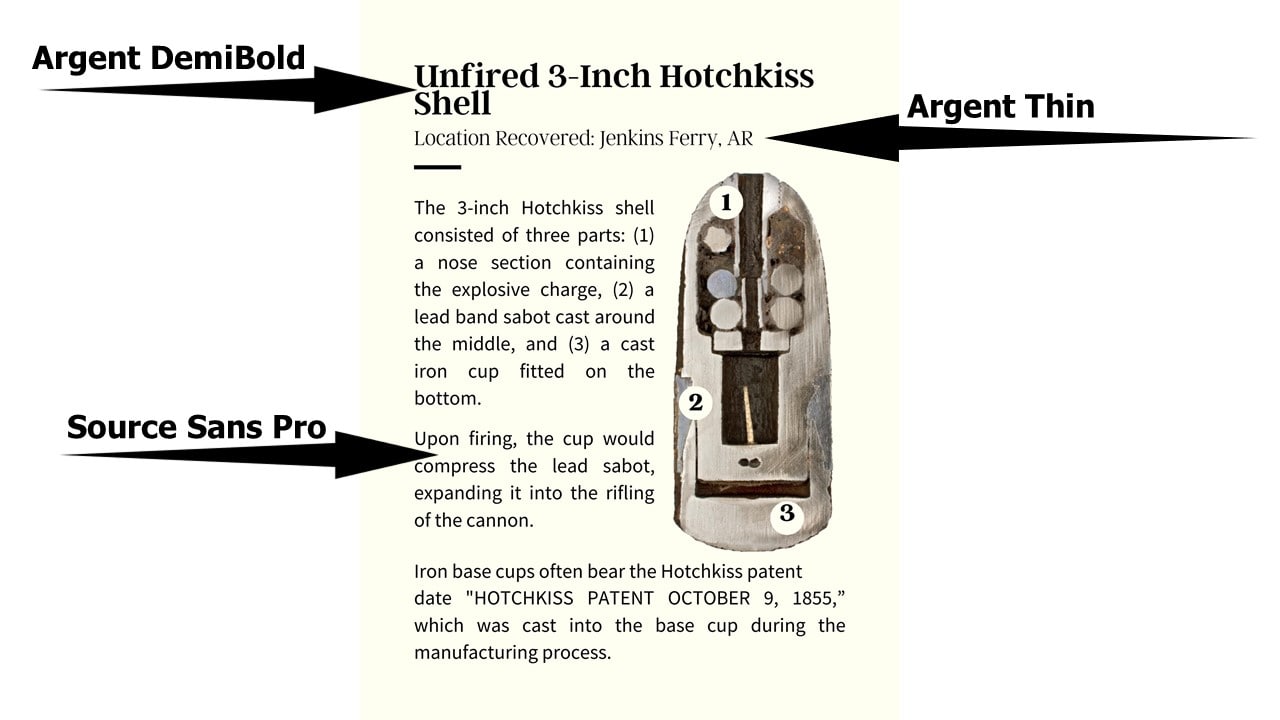
Best Font Size For Museum Labels . Test how they look on leaflet size as well as writ large at the. Type of font serif fonts can be used, as long as they are clear and uncomplicated. What we recommend is using a ratio. Below is an example object label from the national football museum. Sometimes you need to adapt the text hierarchy, perhaps with an additional layer of theme texts at the beginning of a label strip. We often get asked what is the best line height value for ‘insert font size’? Resources for regional museums and galleries 4 producing your labels there are ways you can produce labels using programs.
What we recommend is using a ratio. Resources for regional museums and galleries 4 producing your labels there are ways you can produce labels using programs. Test how they look on leaflet size as well as writ large at the. Type of font serif fonts can be used, as long as they are clear and uncomplicated. We often get asked what is the best line height value for ‘insert font size’? Sometimes you need to adapt the text hierarchy, perhaps with an additional layer of theme texts at the beginning of a label strip. Below is an example object label from the national football museum.
Best Font Size For Museum Labels Test how they look on leaflet size as well as writ large at the. What we recommend is using a ratio. Test how they look on leaflet size as well as writ large at the. Type of font serif fonts can be used, as long as they are clear and uncomplicated. Resources for regional museums and galleries 4 producing your labels there are ways you can produce labels using programs. Sometimes you need to adapt the text hierarchy, perhaps with an additional layer of theme texts at the beginning of a label strip. Below is an example object label from the national football museum. We often get asked what is the best line height value for ‘insert font size’?
Introducing the smart museum label for the 21st century Visionect Best Font Size For Museum Labels Below is an example object label from the national football museum. Type of font serif fonts can be used, as long as they are clear and uncomplicated. We often get asked what is the best line height value for ‘insert font size’? Sometimes you need to adapt the text hierarchy, perhaps with an additional layer of theme texts at the. Best Font Size For Museum Labels.
5 Types of Museum Labels We Make for Exhibits Image Transfers Best Font Size For Museum Labels Resources for regional museums and galleries 4 producing your labels there are ways you can produce labels using programs. Test how they look on leaflet size as well as writ large at the. We often get asked what is the best line height value for ‘insert font size’? What we recommend is using a ratio. Type of font serif fonts. Best Font Size For Museum Labels.
I'm after the typical font used in a typical museum label r/fonts Best Font Size For Museum Labels Type of font serif fonts can be used, as long as they are clear and uncomplicated. What we recommend is using a ratio. Test how they look on leaflet size as well as writ large at the. Below is an example object label from the national football museum. Sometimes you need to adapt the text hierarchy, perhaps with an additional. Best Font Size For Museum Labels.
Exhibition Labels Template Label Templates, Labels, Art show Best Font Size For Museum Labels Test how they look on leaflet size as well as writ large at the. We often get asked what is the best line height value for ‘insert font size’? What we recommend is using a ratio. Type of font serif fonts can be used, as long as they are clear and uncomplicated. Resources for regional museums and galleries 4 producing. Best Font Size For Museum Labels.
Museum Labels Dry Transfer Letters Best Museum Labels Top Museum Best Font Size For Museum Labels We often get asked what is the best line height value for ‘insert font size’? Resources for regional museums and galleries 4 producing your labels there are ways you can produce labels using programs. Type of font serif fonts can be used, as long as they are clear and uncomplicated. Sometimes you need to adapt the text hierarchy, perhaps with. Best Font Size For Museum Labels.
Custom Dry Transfers for Museum Wall Labels & Museum Wall Text Best Font Size For Museum Labels Resources for regional museums and galleries 4 producing your labels there are ways you can produce labels using programs. We often get asked what is the best line height value for ‘insert font size’? Sometimes you need to adapt the text hierarchy, perhaps with an additional layer of theme texts at the beginning of a label strip. What we recommend. Best Font Size For Museum Labels.
33 Museum Object Label Template Labels Design Ideas 2020 Best Font Size For Museum Labels Sometimes you need to adapt the text hierarchy, perhaps with an additional layer of theme texts at the beginning of a label strip. We often get asked what is the best line height value for ‘insert font size’? Test how they look on leaflet size as well as writ large at the. Type of font serif fonts can be used,. Best Font Size For Museum Labels.
Vintage Museum Font PutraCetol Studio FontSpace Best Font Size For Museum Labels Type of font serif fonts can be used, as long as they are clear and uncomplicated. Resources for regional museums and galleries 4 producing your labels there are ways you can produce labels using programs. Test how they look on leaflet size as well as writ large at the. What we recommend is using a ratio. We often get asked. Best Font Size For Museum Labels.